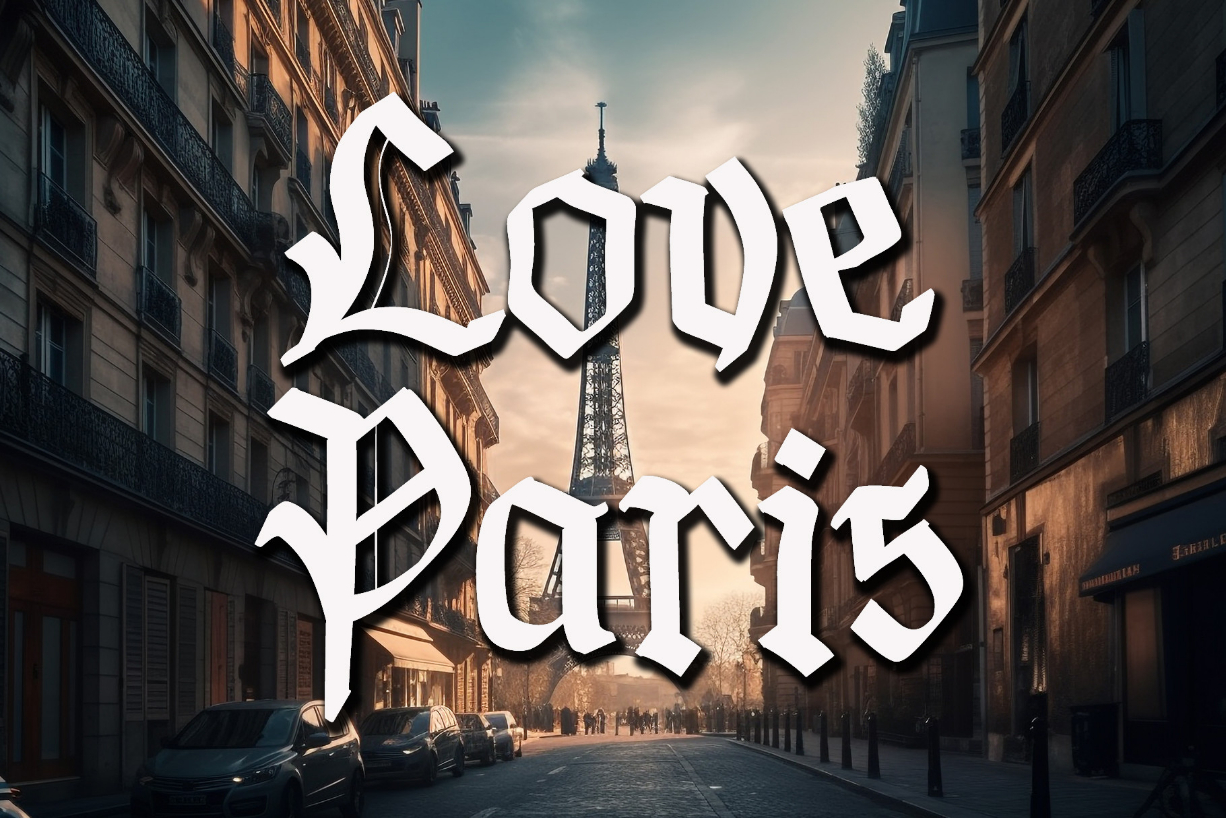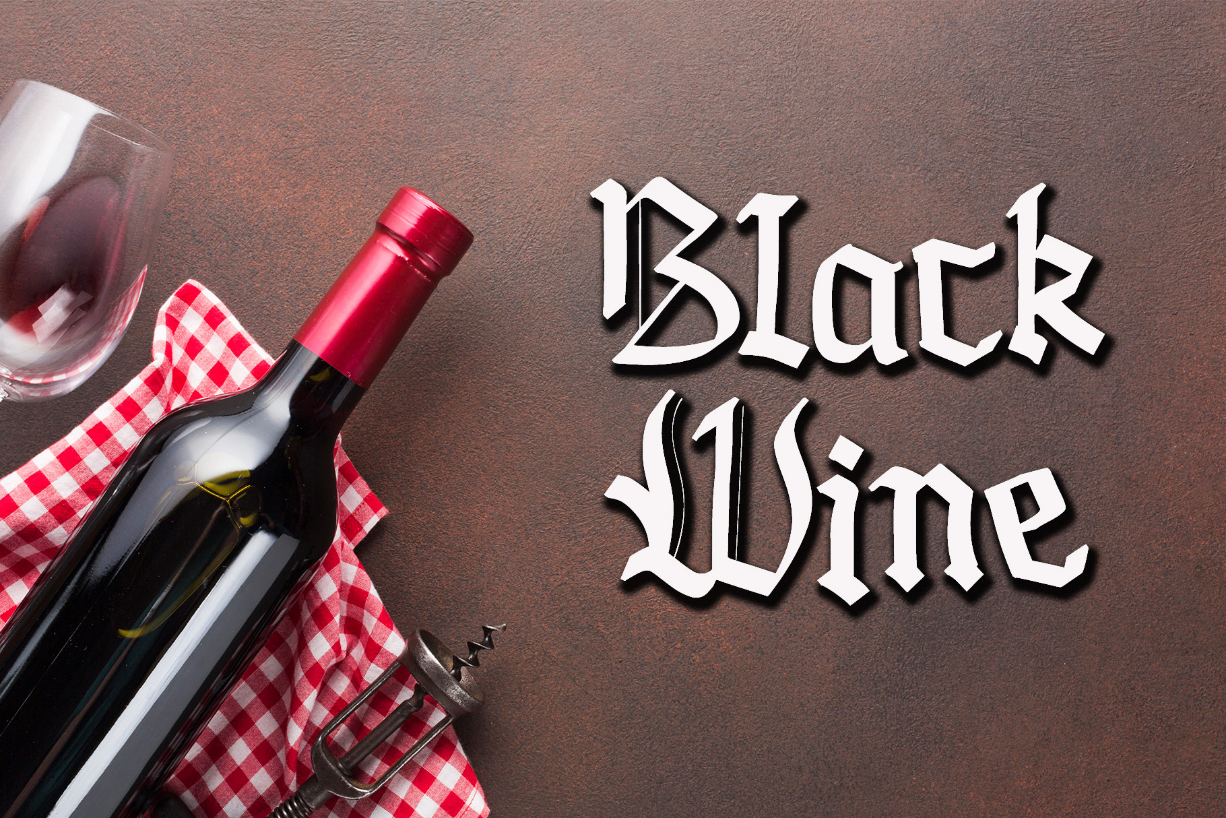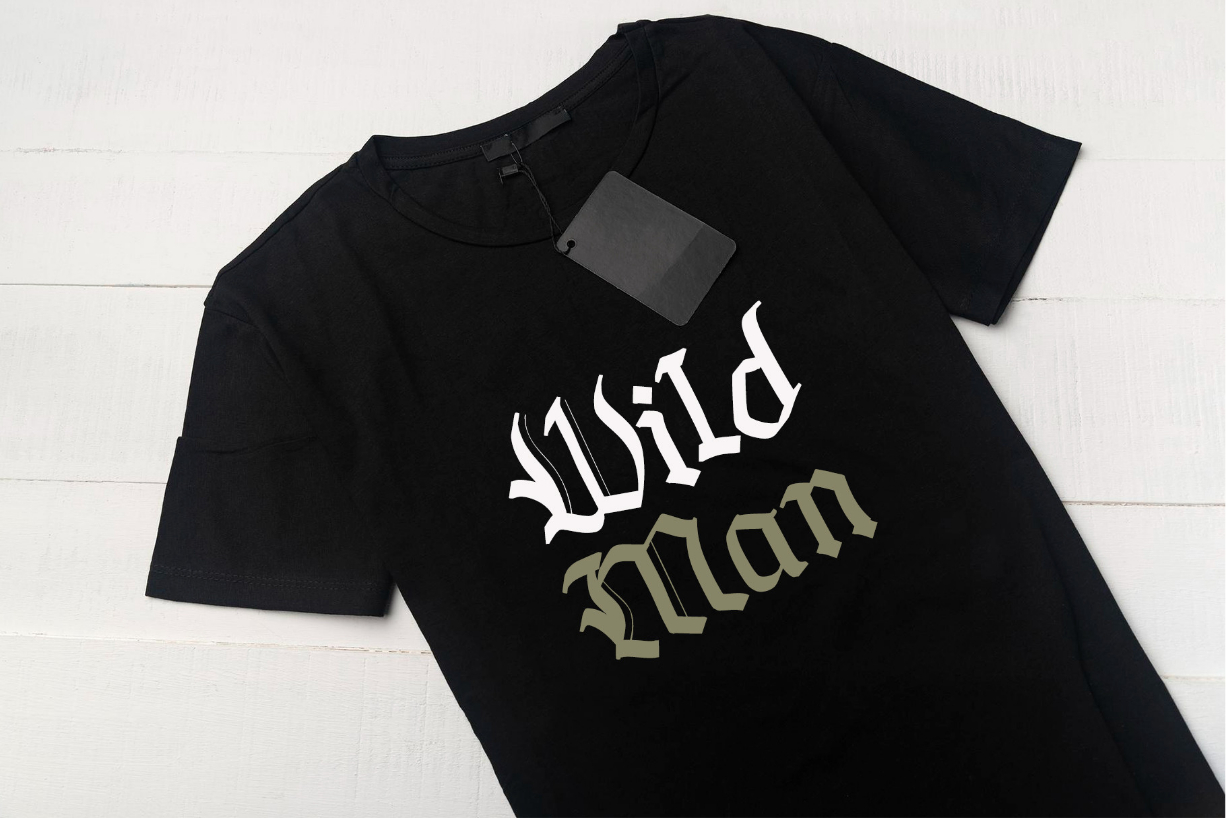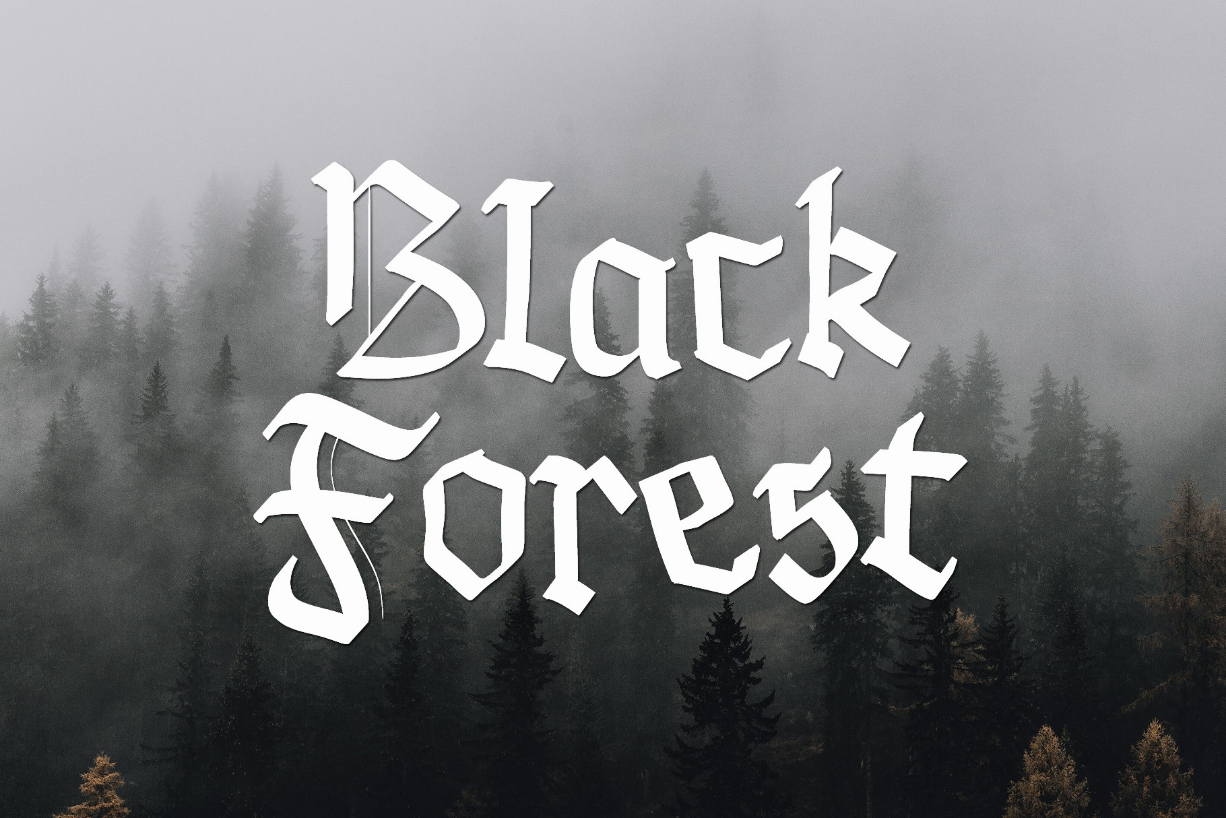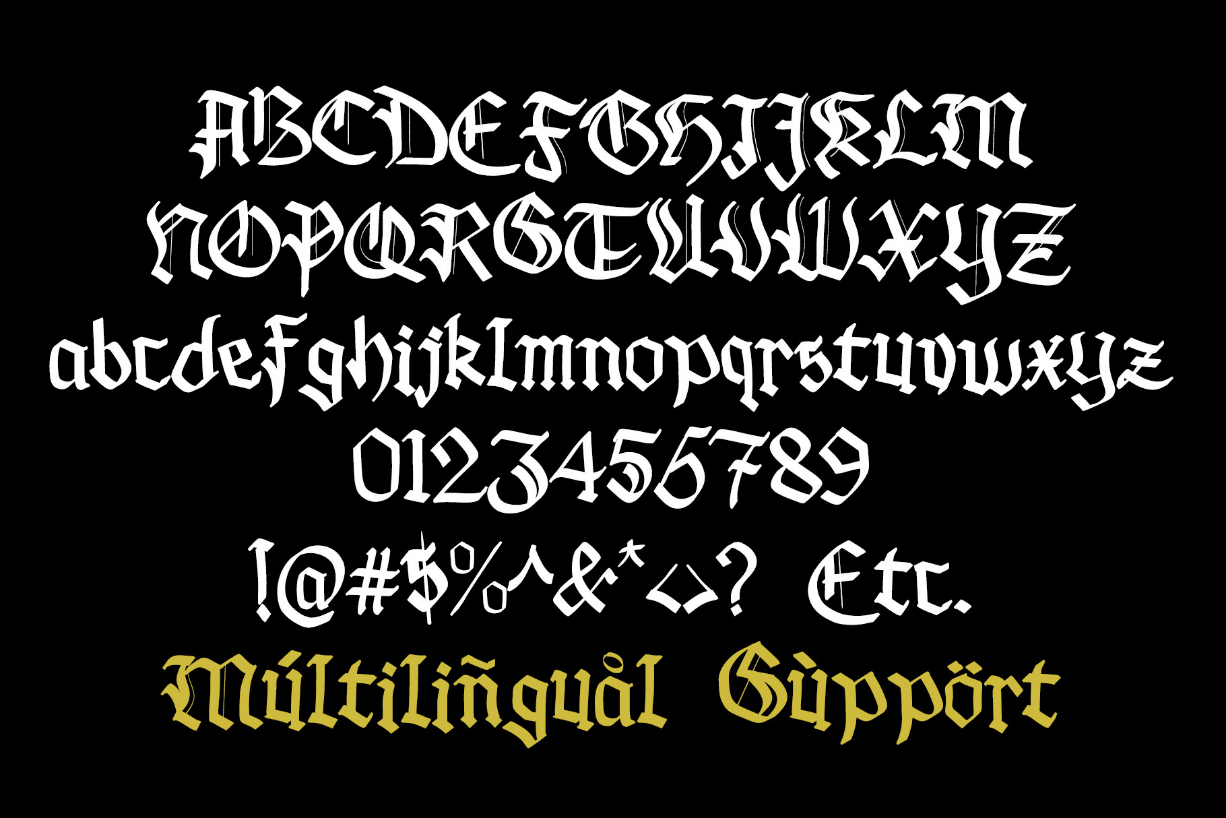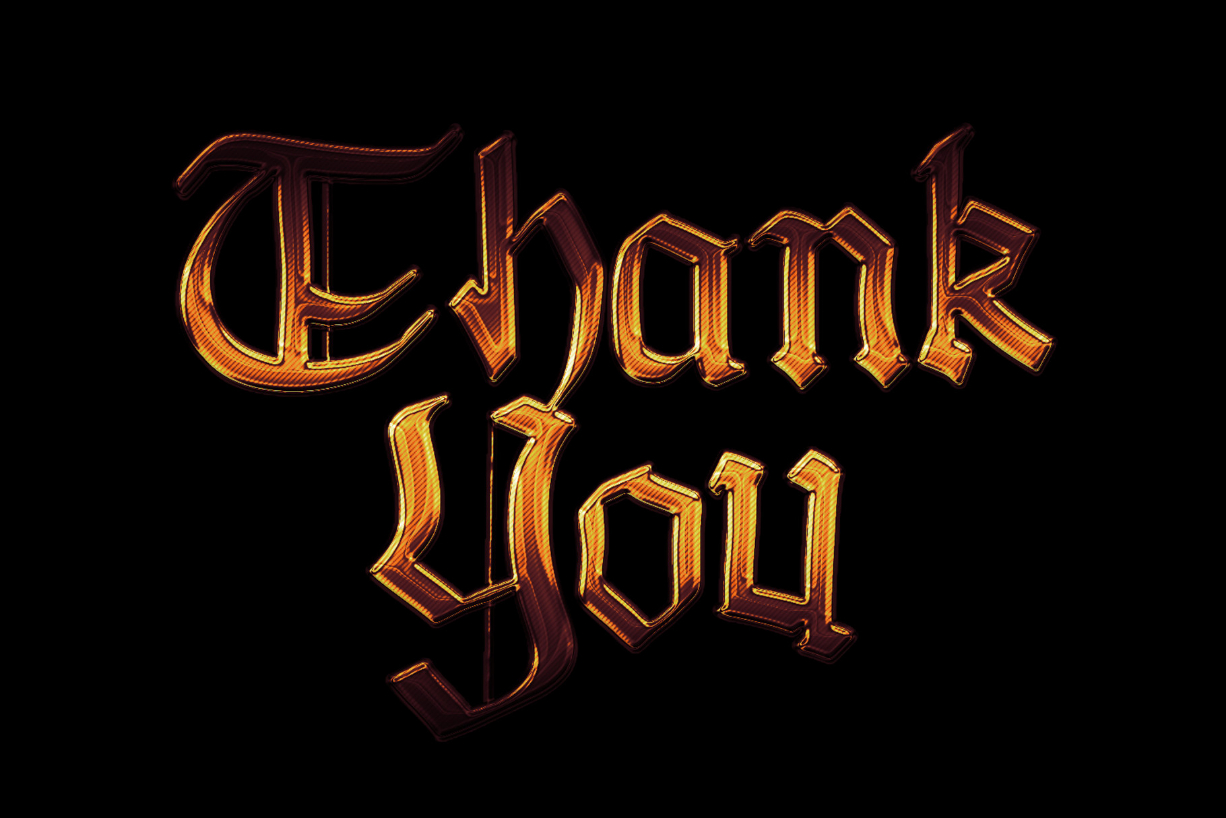
Black Lonthe Font
About Black Lonthe Font
Black Lonthe is an exquisite blackletter font that exudes timeless elegance. With its bold and ornate strokes, it captures the essence of traditional calligraphy while adding a modern twist. The sleek, sophisticated design of Black Lonthe makes it perfect for creating eye-catching titles, logos, and invitations that leave a lasting impression.